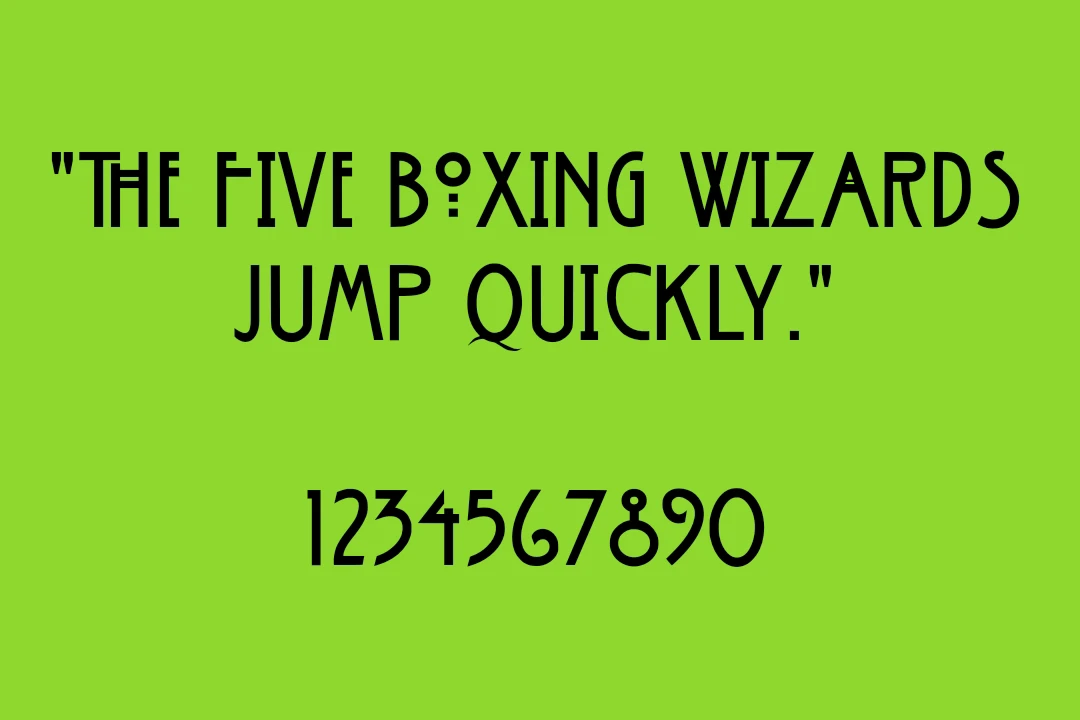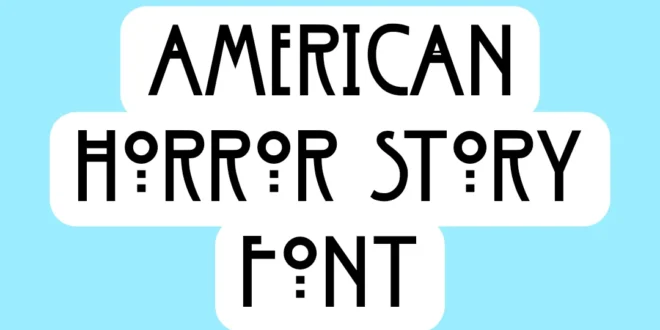
The CRM American Horror font family was designed by George R. Grant for the American television series American Horror Story.
American Horror Story Font has gained immense popularity due to its eerie and unique style, perfectly embodying the chilling essence of the hit TV series.
This font performs exceptionally well on both digital screens and print media. Whether you are crafting social media graphics, custom merchandise, or editorial layouts, the font remains clear and impactful.
Uses of American Horror Story Font
Ideal for movie posters, book covers, and product packaging, the font’s striking appearance ensures your content stands out. You can easily pair it with roff display font and create fantastic projects. It is the perfect choice for creating fantastic projects.
From custom invitations to themed party décor, this font adds a dramatic touch to personal designs, ensuring they leave a lasting impression.
FAQs About American Horror Story Font
What is American Horror Story used for?
The font is widely used in horror-themed projects, including logos, posters, and digital graphics, for its dramatic and unsettling appearance.